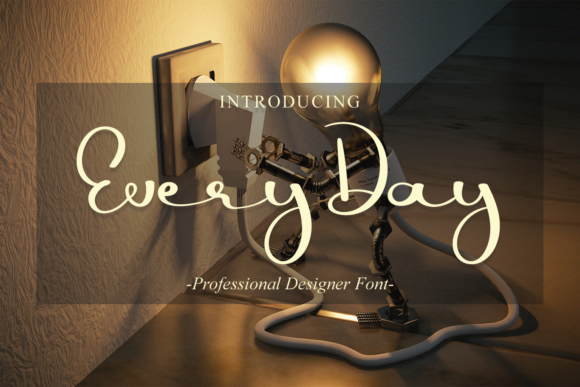
Introducing Every Day Font, the Epitome of Enchanting Script for Your Wedding Day Dreams!
Step into a world of unparalleled elegance with Every Day Font, a breathtakingly thin lettered and graceful script font that will cast a spell on your wedding invitations and stationery. Its delicate strokes and flowing curves will effortlessly elevate your designs, leaving an unforgettable impression on your guests.
With Every Day Font, you'll have the power to create wedding invitations that shimmer with sophistication and radiate an aura of timeless romance. Each letter dances across the page like a gentle whisper, capturing the essence of your love story in a way that words alone cannot describe.
But Every Day Font's magic extends far beyond wedding invitations. Its versatility knows no bounds, making it the perfect choice for any occasion that calls for a touch of whimsy and elegance. From beautiful stationary art to captivating social media posts, Every Day Font will add an enchanting touch to all your designs.
So, let Everyday Font be your muse and embark on a creative journey that will leave your heart filled with joy and your designs overflowing with beauty. Fall in love with its ravishing style and watch as your creations transform into masterpieces of elegance.